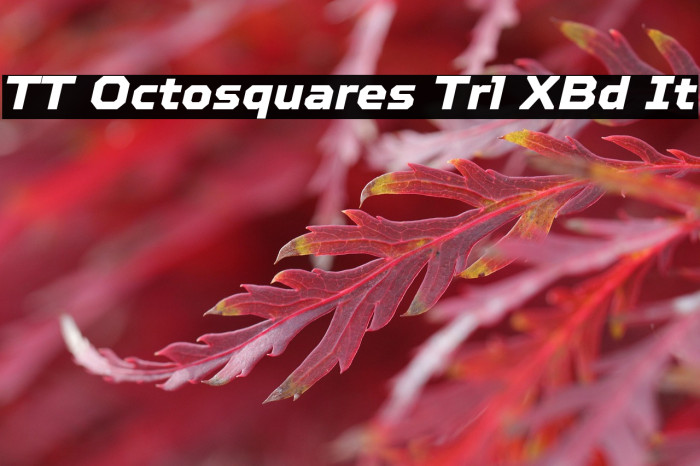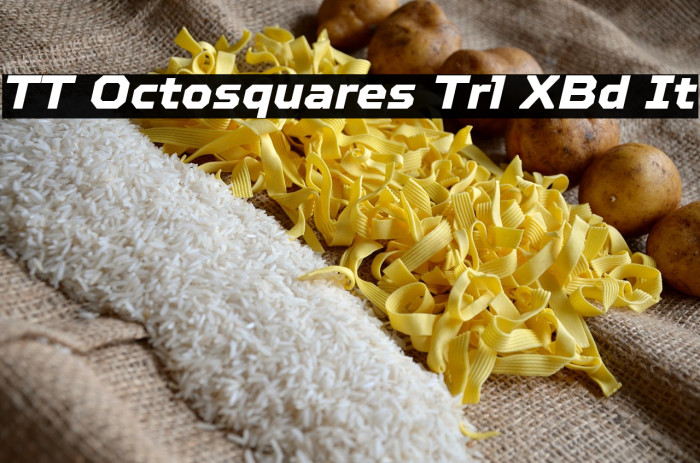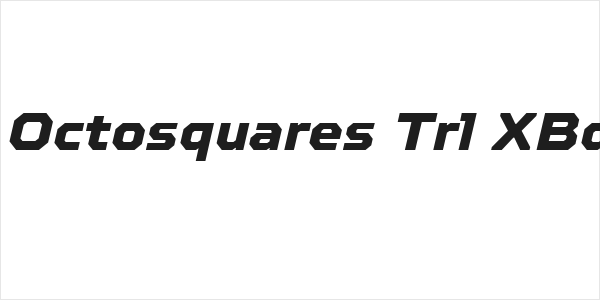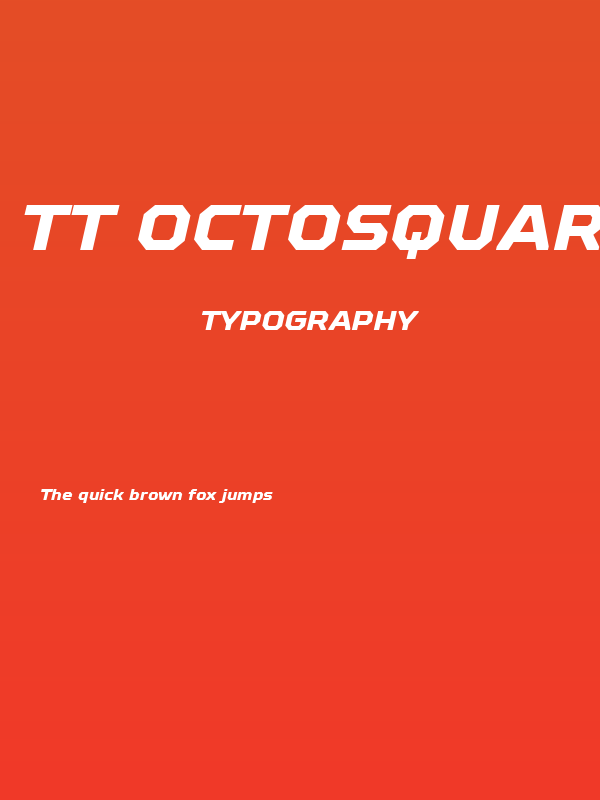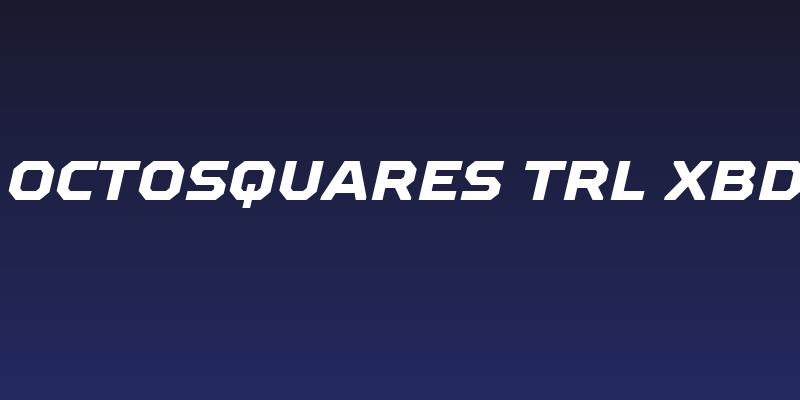
TT Octosquares Trl XBd It Font
TT Octosquares Trl XBd It Description
This font features a bold and angular design with a modern, geometric aesthetic. The characters are slightly italicized, giving them a dynamic and forward-leaning appearance. The strokes are thick and consistent, providing a strong visual impact. The overall style is contemporary, with a futuristic feel that is enhanced by the squared-off edges and sharp angles. The spacing between characters is tight, contributing to a compact and cohesive look. This font is well-suited for projects that require a bold statement, such as technology branding, sports team logos, or dynamic headlines.
| Proposed Projects | Ideal for technology branding, sports logos, dynamic headlines, and futuristic designs. |